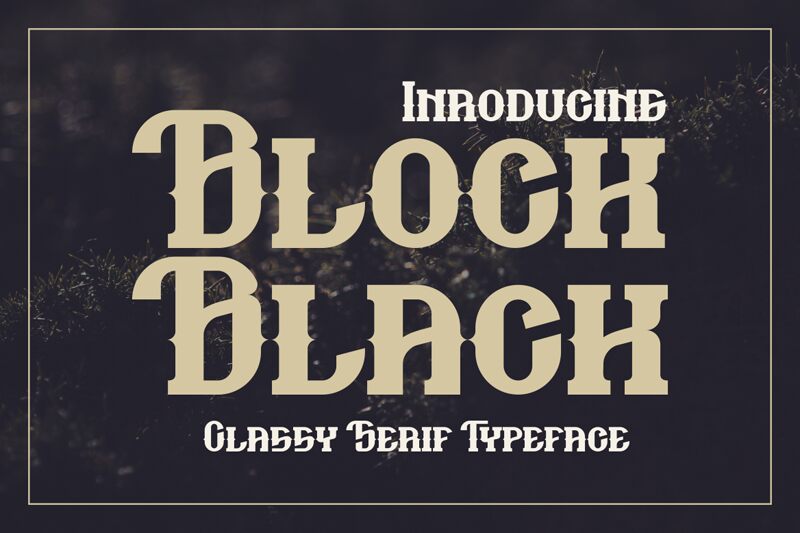
Block Black font family by Gilang Ternadho is available as a free font for personal use. The stately font draws its influences from retro typography, with some of its geometric form reflecting traditional and formal motives. It achieves an impactful and timeless typeface with a classy style that remains elegant in its simplicity. Each letter is characterized by its bold and present visual appearance.
Use Block Black for aesthetically pleasing print and web designs, a joy to read and to explore. Create remarkable branding designs including logos and labels or stunning business cards and stationery projects. Combine traditionally inspired editorials and magazines or decorate book covers. Display the vivid characters in apps and websites or online platforms. Take your posters, flyers, and brochures to new heights when developing exhibition and other creative projects.